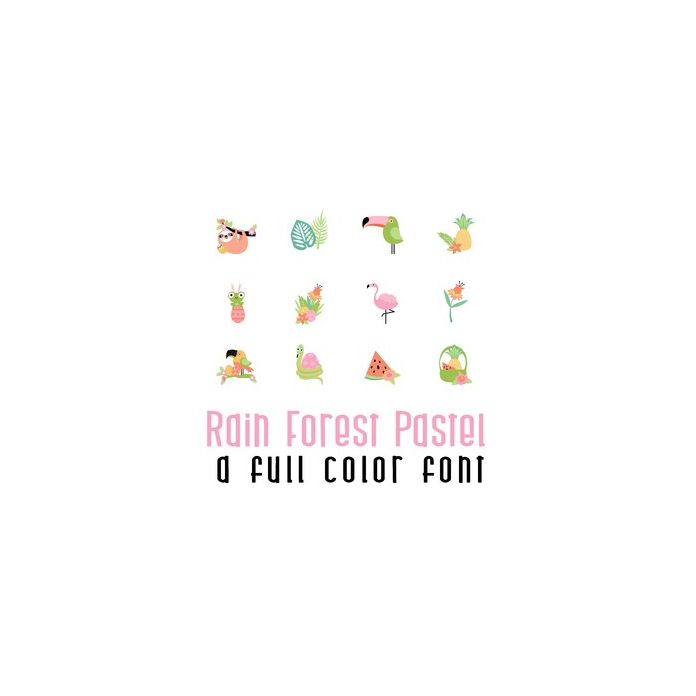
This adorable full-color doodlebat font features 26 beautiful rain forest animals perfect for Spring and Easter. Perfect for cards, crafts, gifts, decor, scrapbook pages, planner stickers, and more!